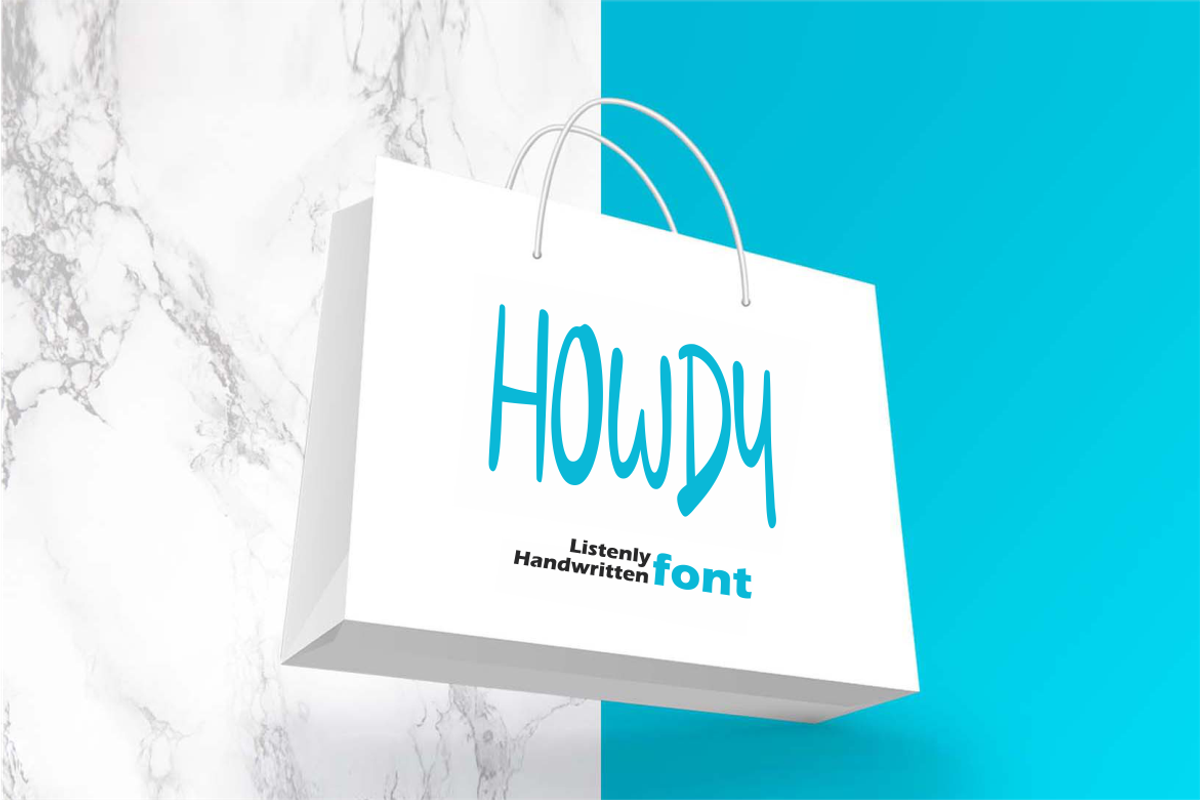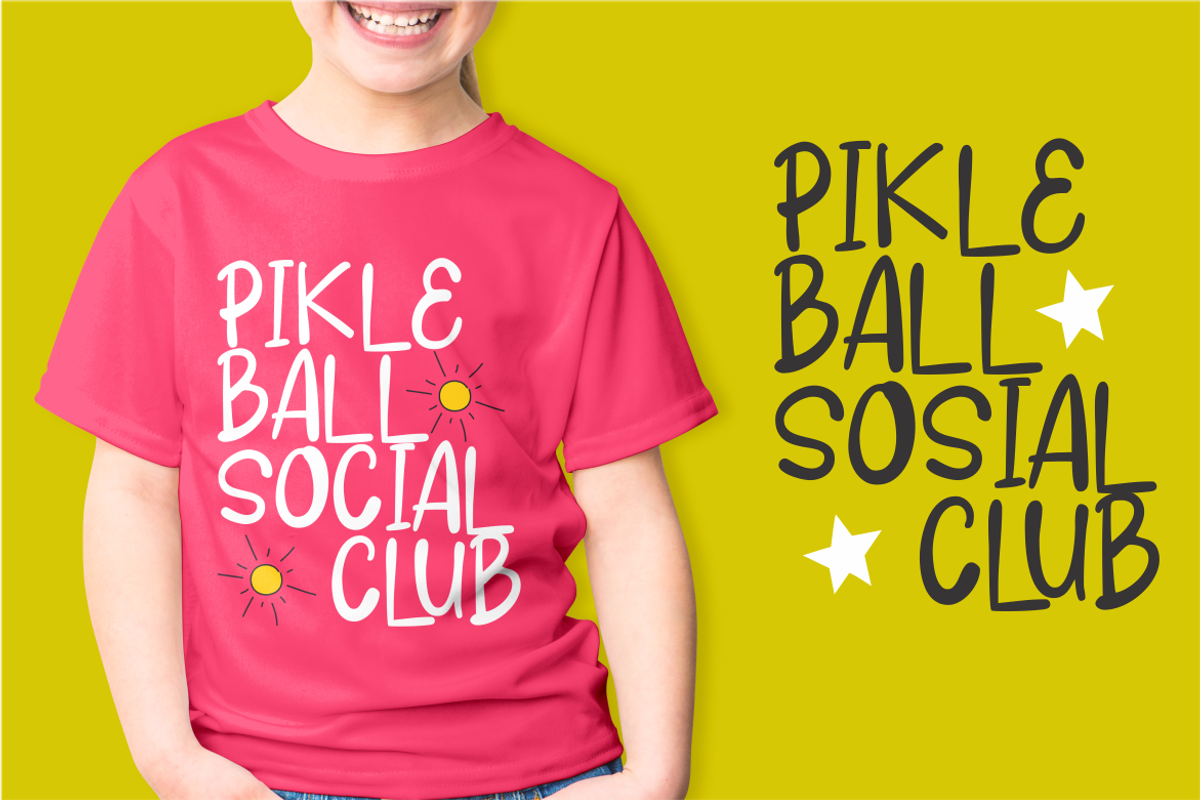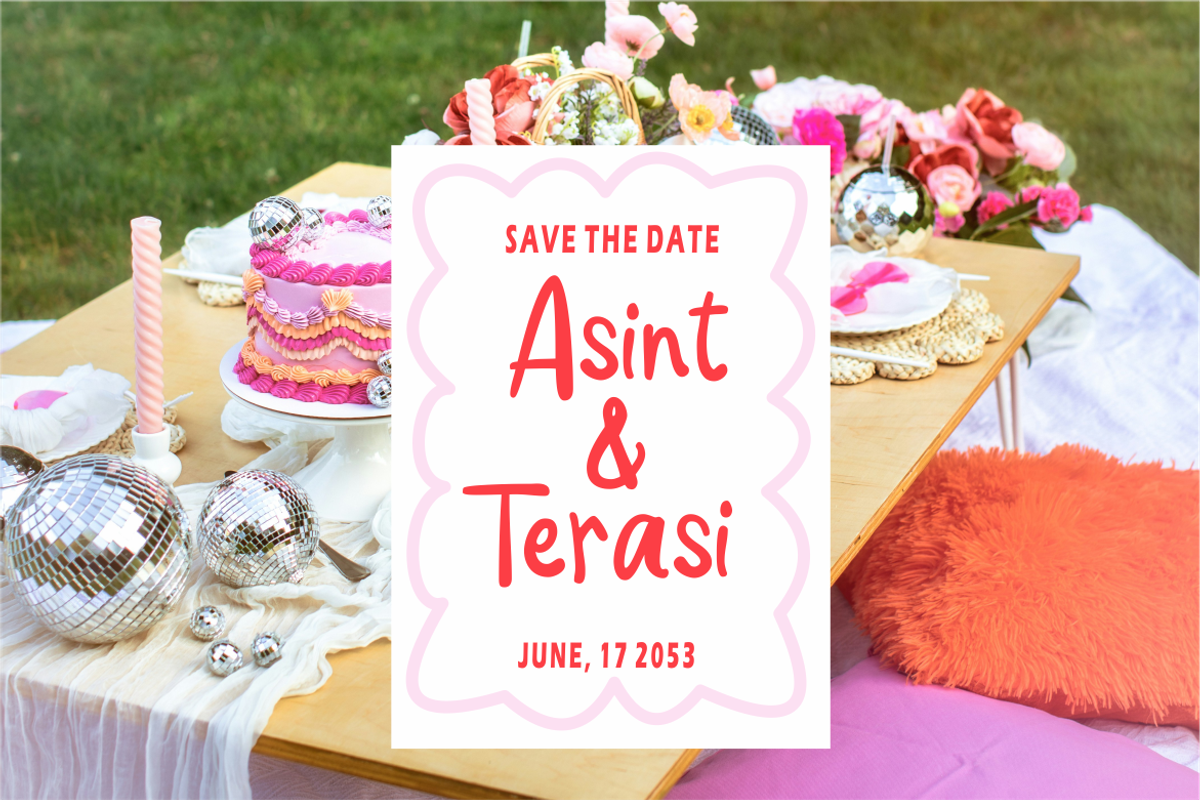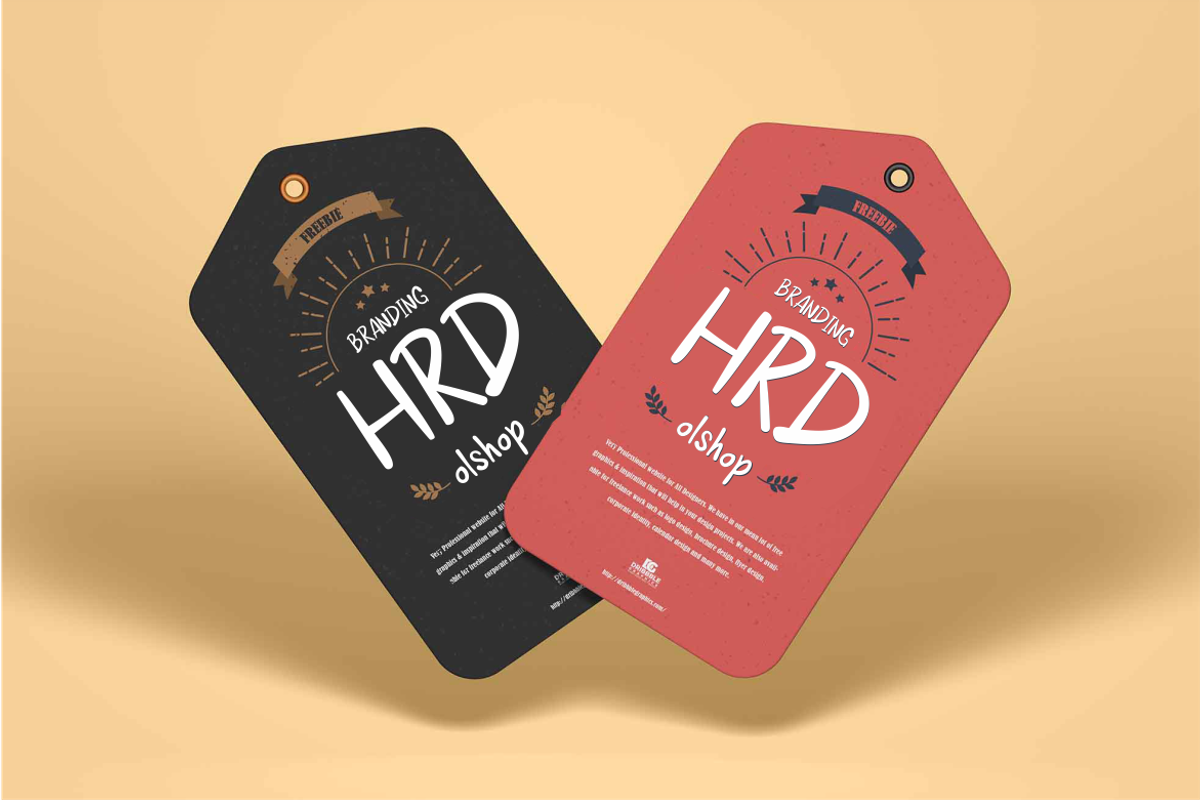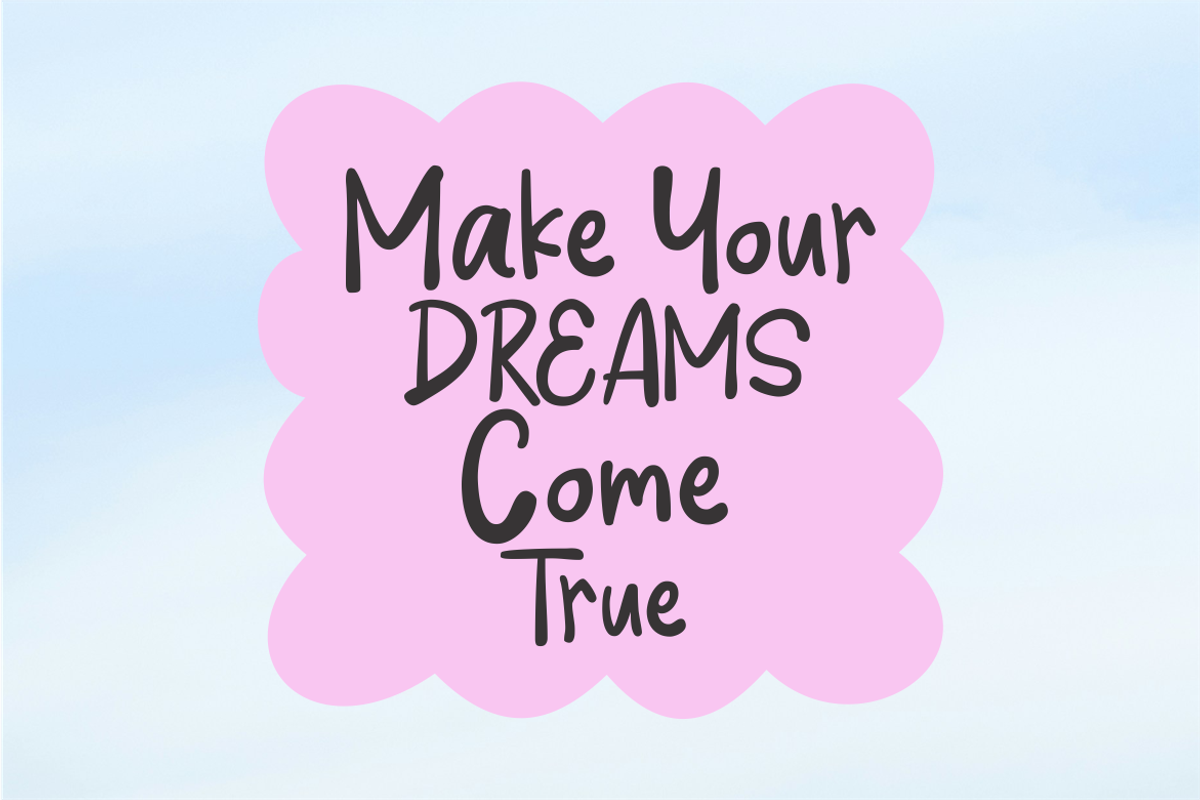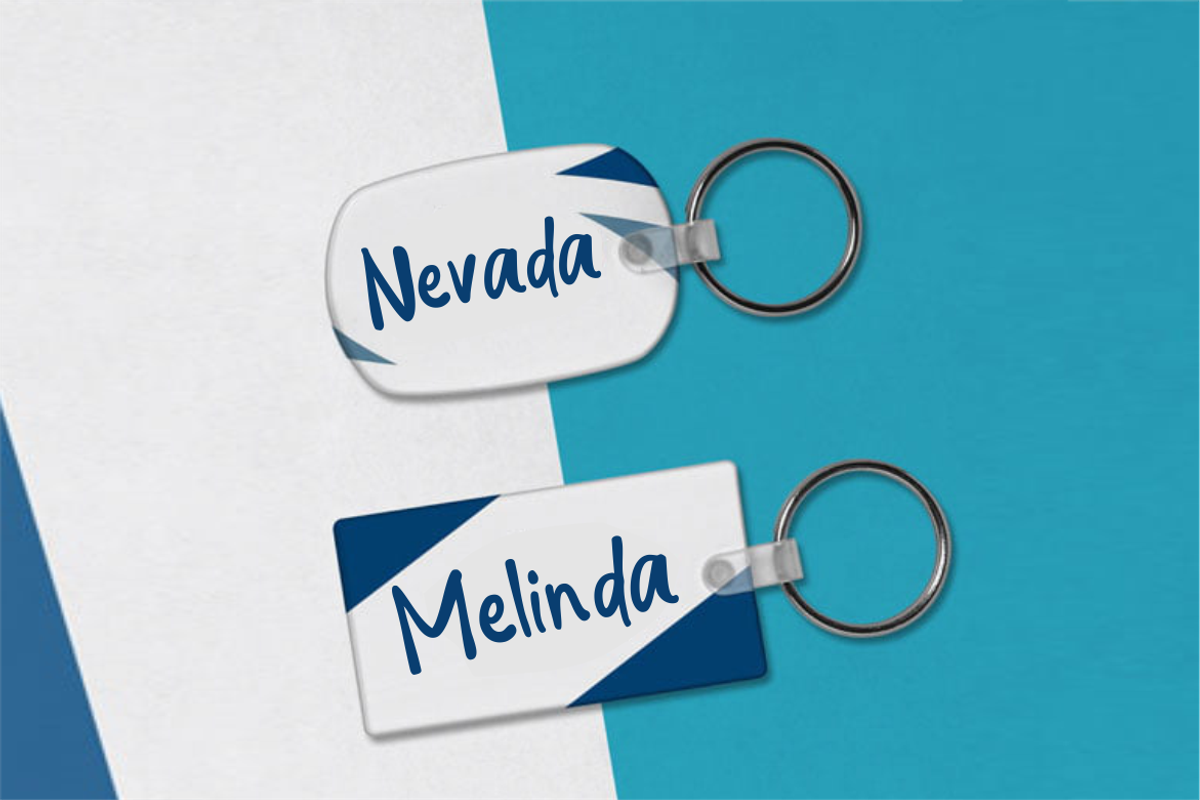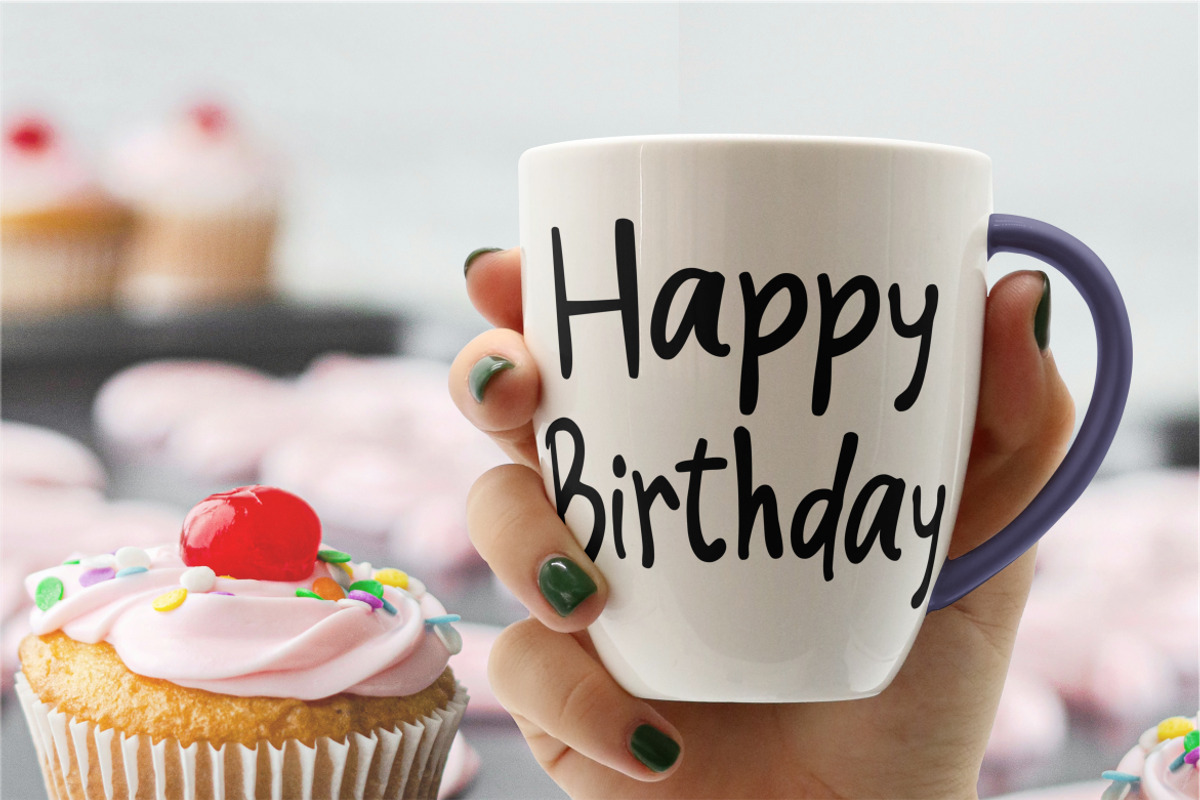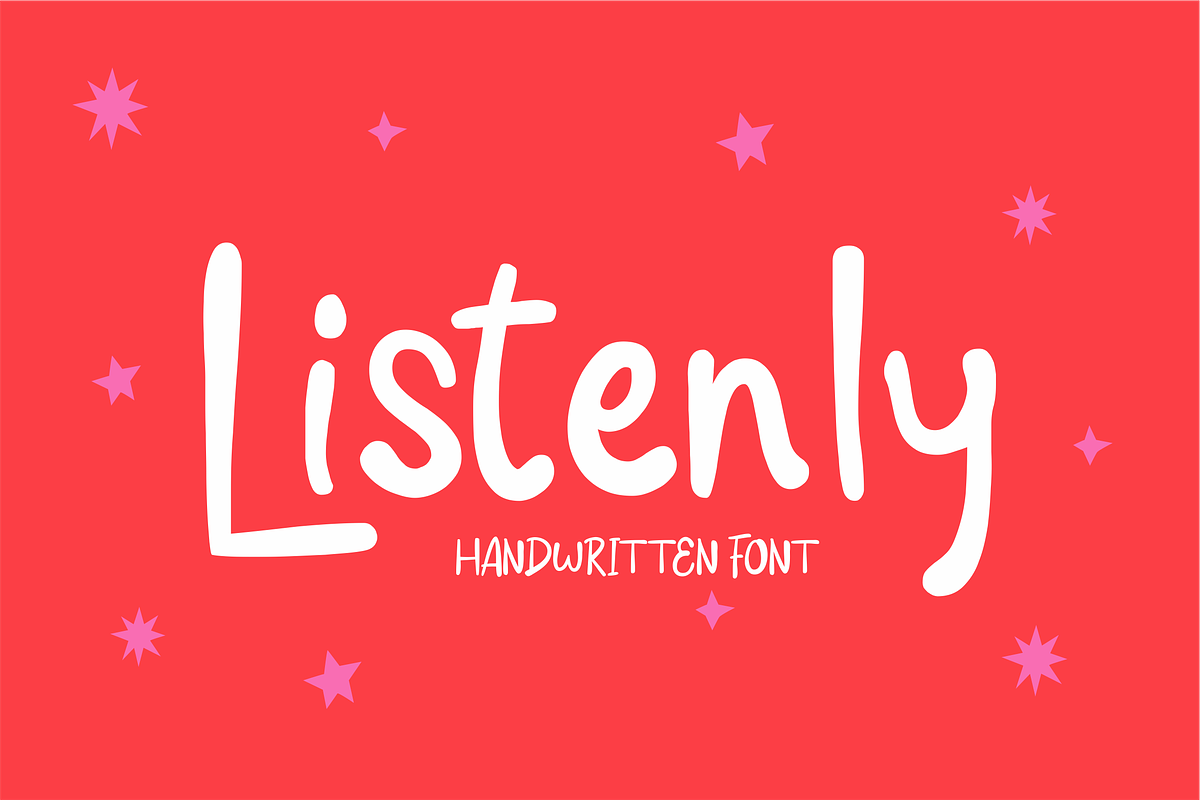
Listenly
Listenly is a tall sans font handwritten
This font is perfect for cricut projects, logos, shirts, svg files, planners, stickers, quotes, social media and more!